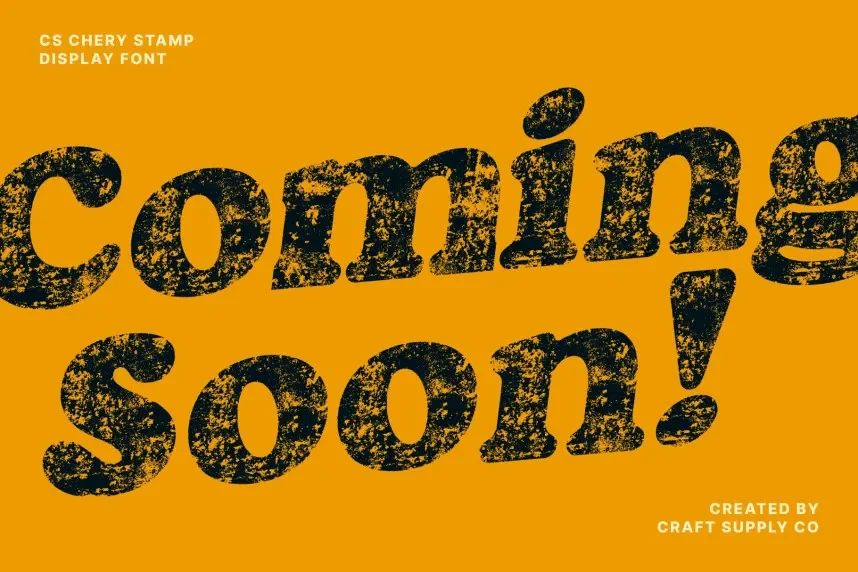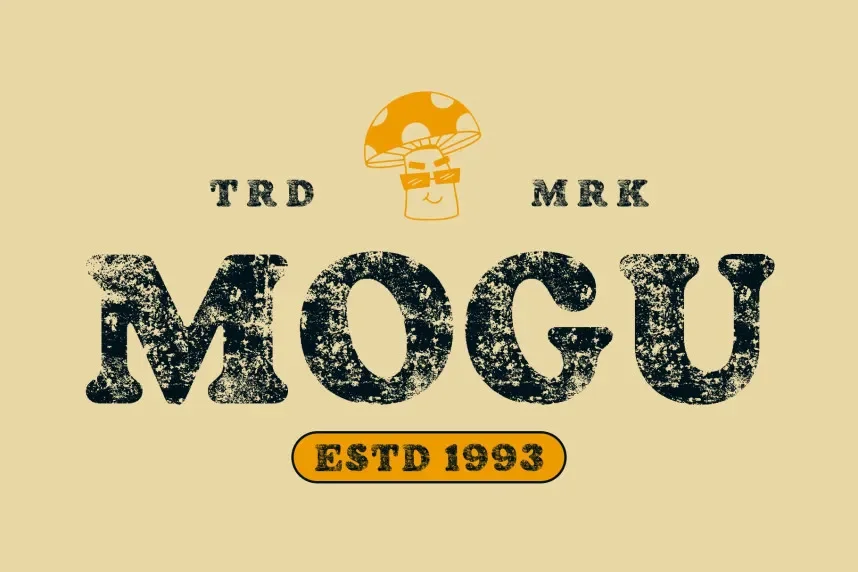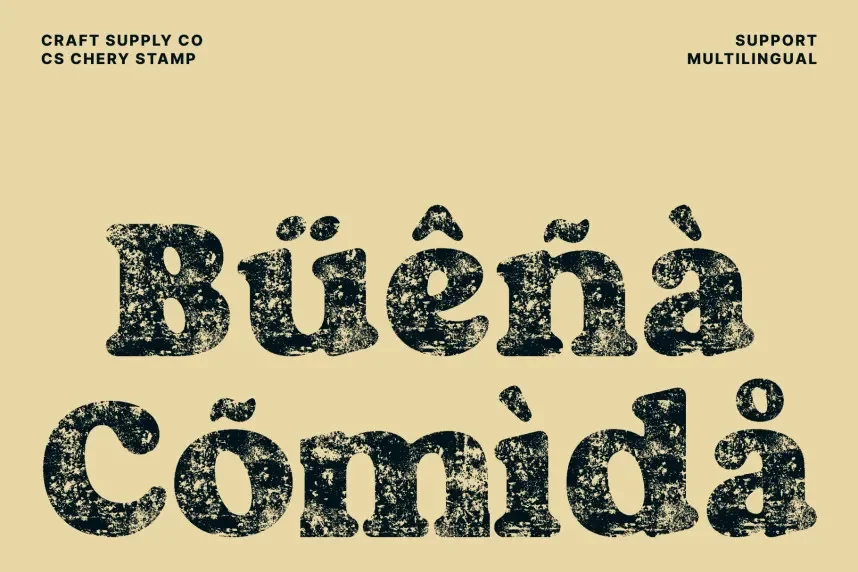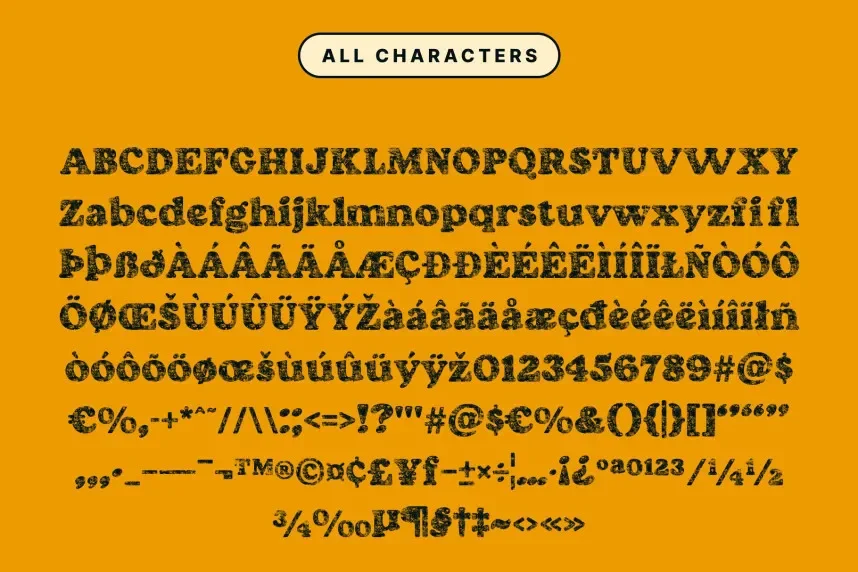
CS Chery Stamp Font is a script-style font that combines a hand-drawn, whimsical look with legible letterforms. The font’s unique stroke style and flourishes make it perfect for casual branding, social media designs, or wedding invitations that require a personal touch.
Best used in logos, wedding stationery, and creative marketing materials, CS Chery Stamp Font pairs nicely with simple sans-serif fonts for balance. The font is available in TTF and OTF formats with a commercial-use license. Be sure to check the license before using it commercially.